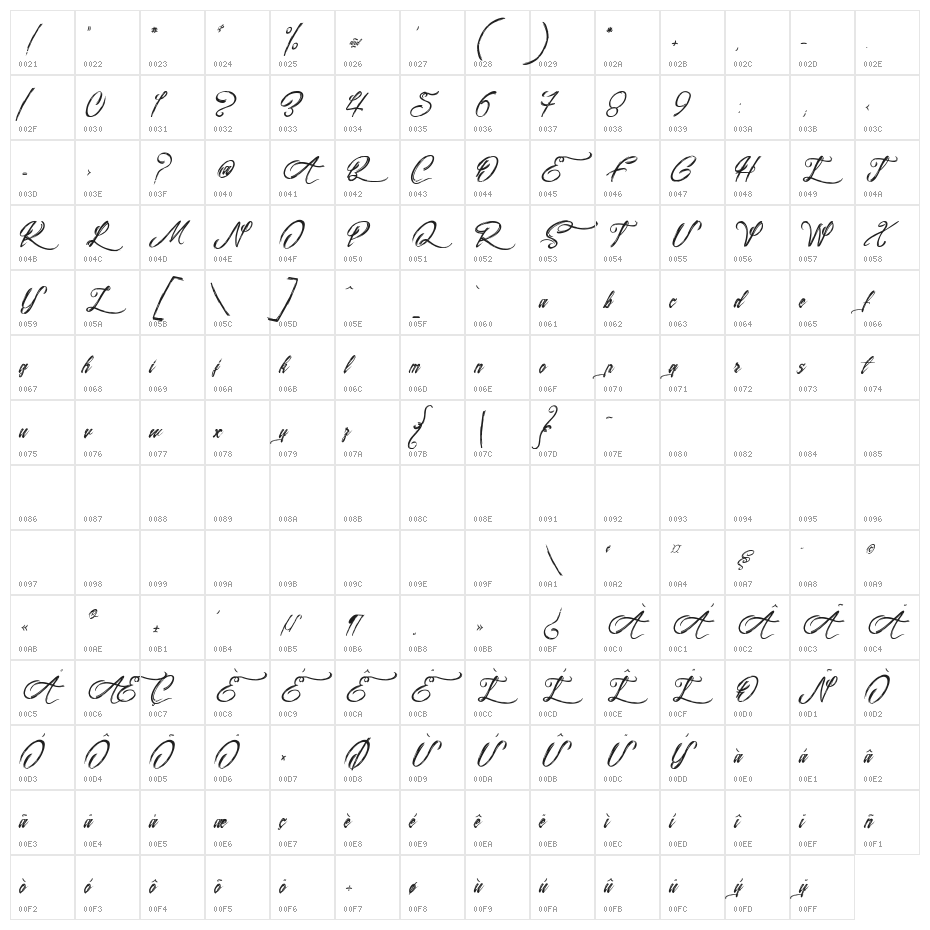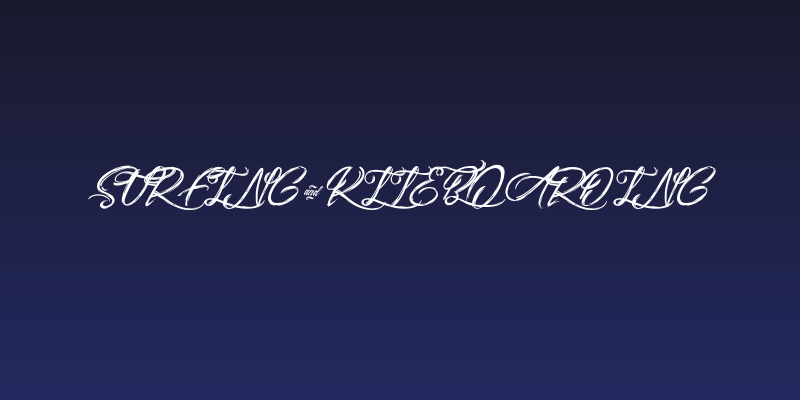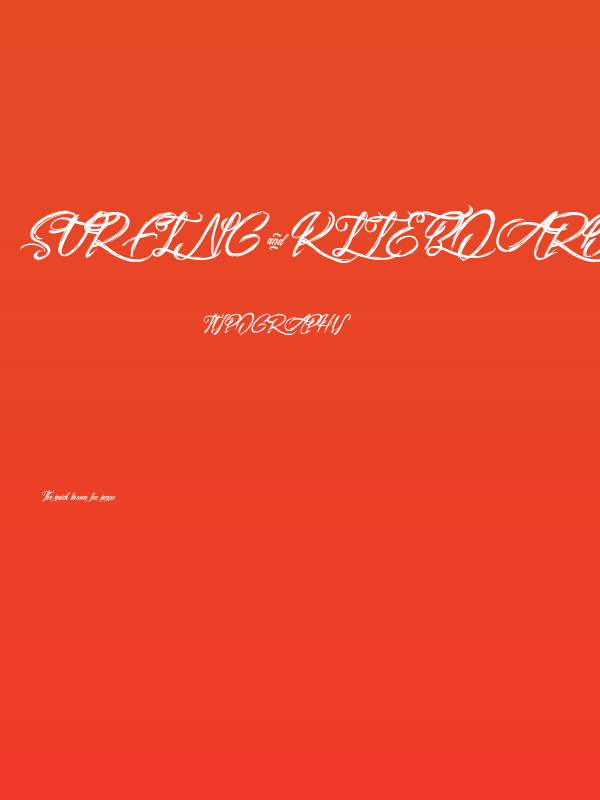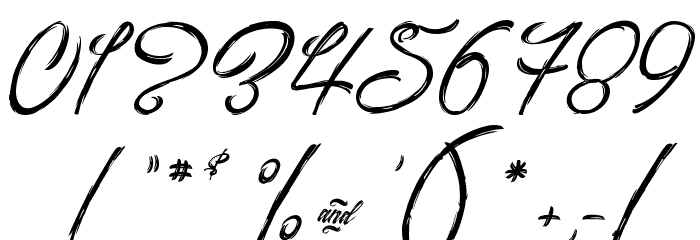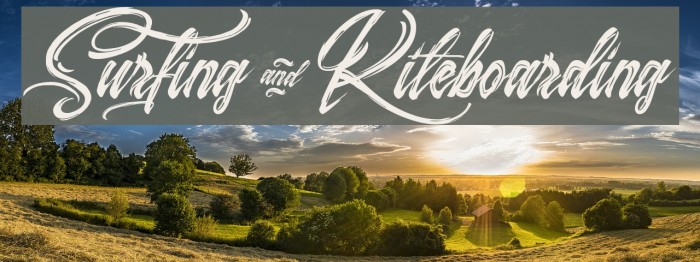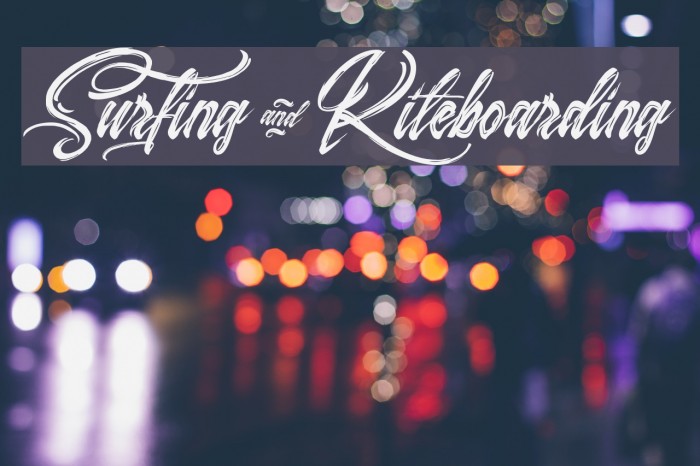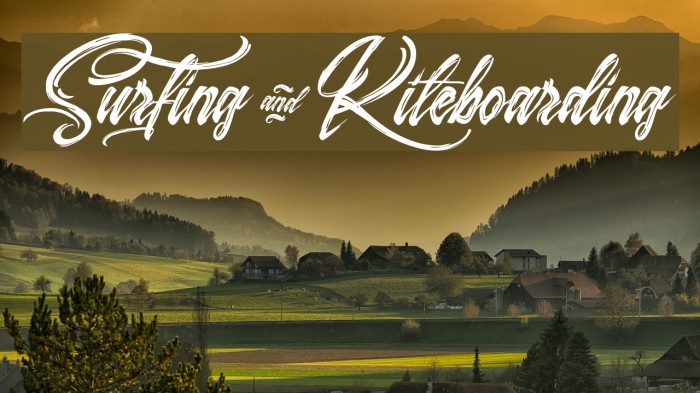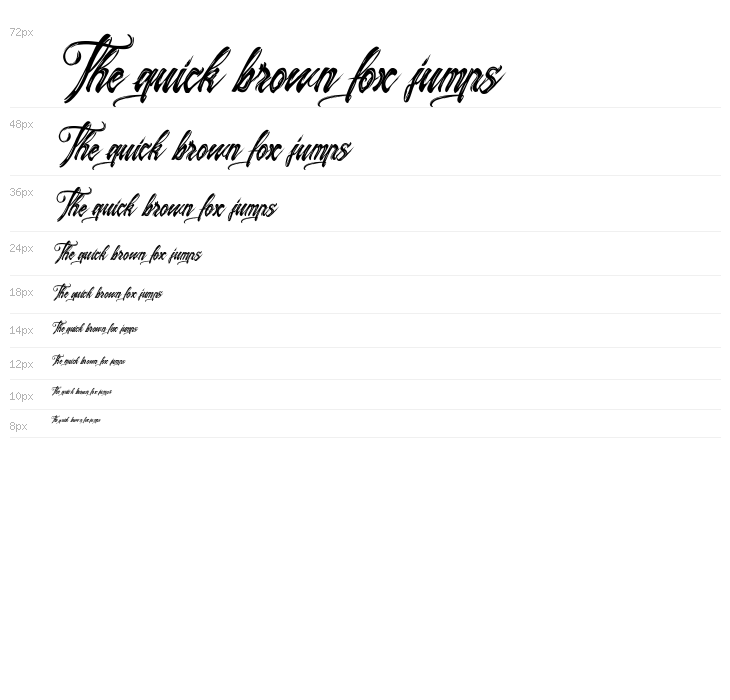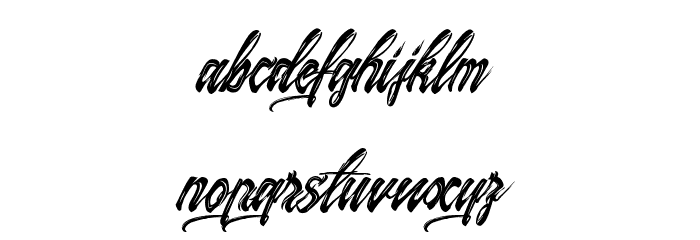
Surfing & Kiteboarding Font
Surfing & Kiteboarding Description
This font exhibits a dynamic and fluid script style, characterized by its elegant, flowing curves and intricate detailing. The uppercase letters are bold and expressive, with sweeping ascenders and descenders that create a sense of movement and grace. The lowercase letters maintain a consistent rhythm, complementing the uppercase with their smooth, connected strokes. Numbers and special characters are crafted with the same attention to detail, ensuring a cohesive look across all elements. The overall appearance is both sophisticated and artistic, making it suitable for projects that require a touch of elegance and flair.